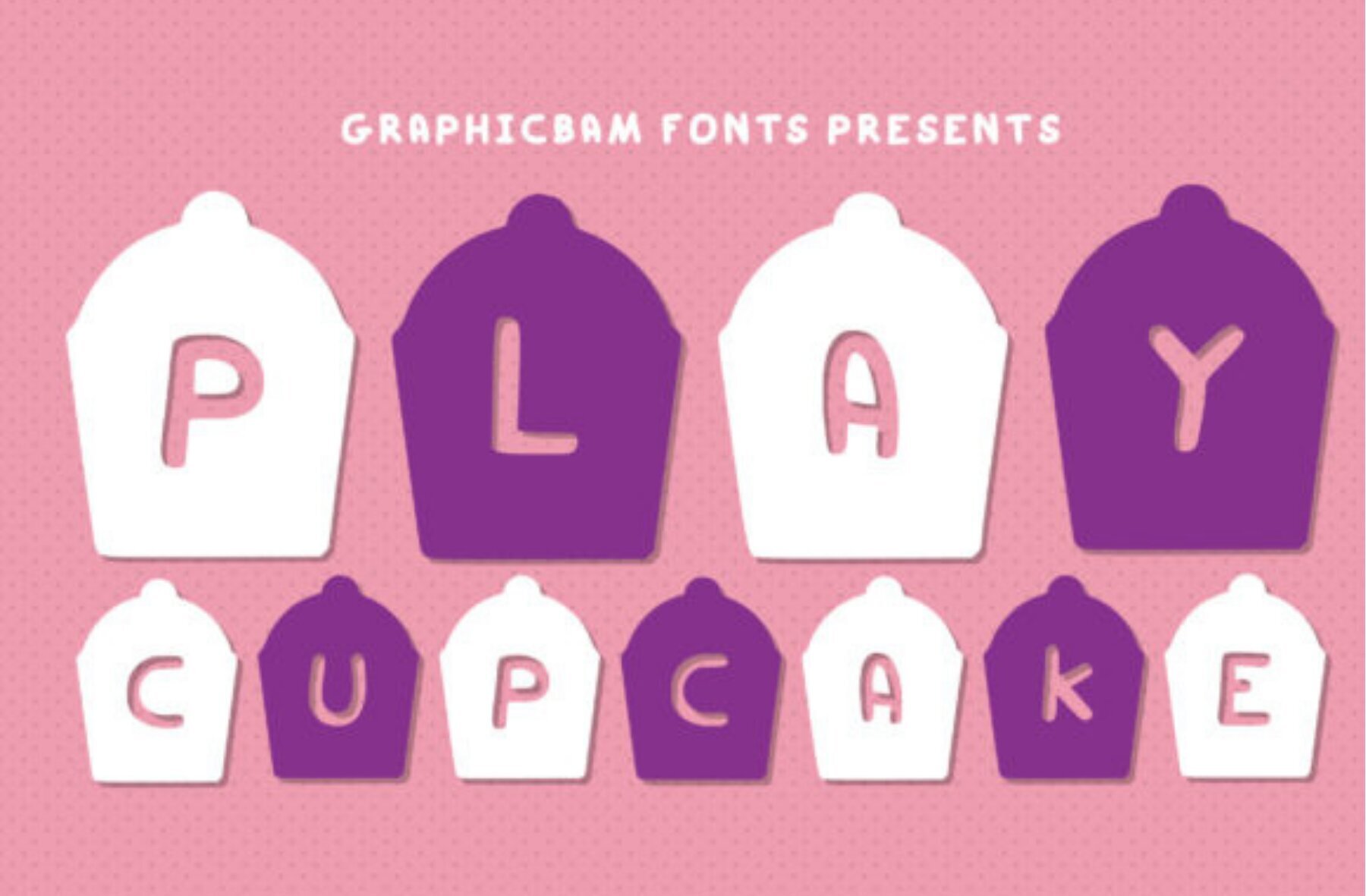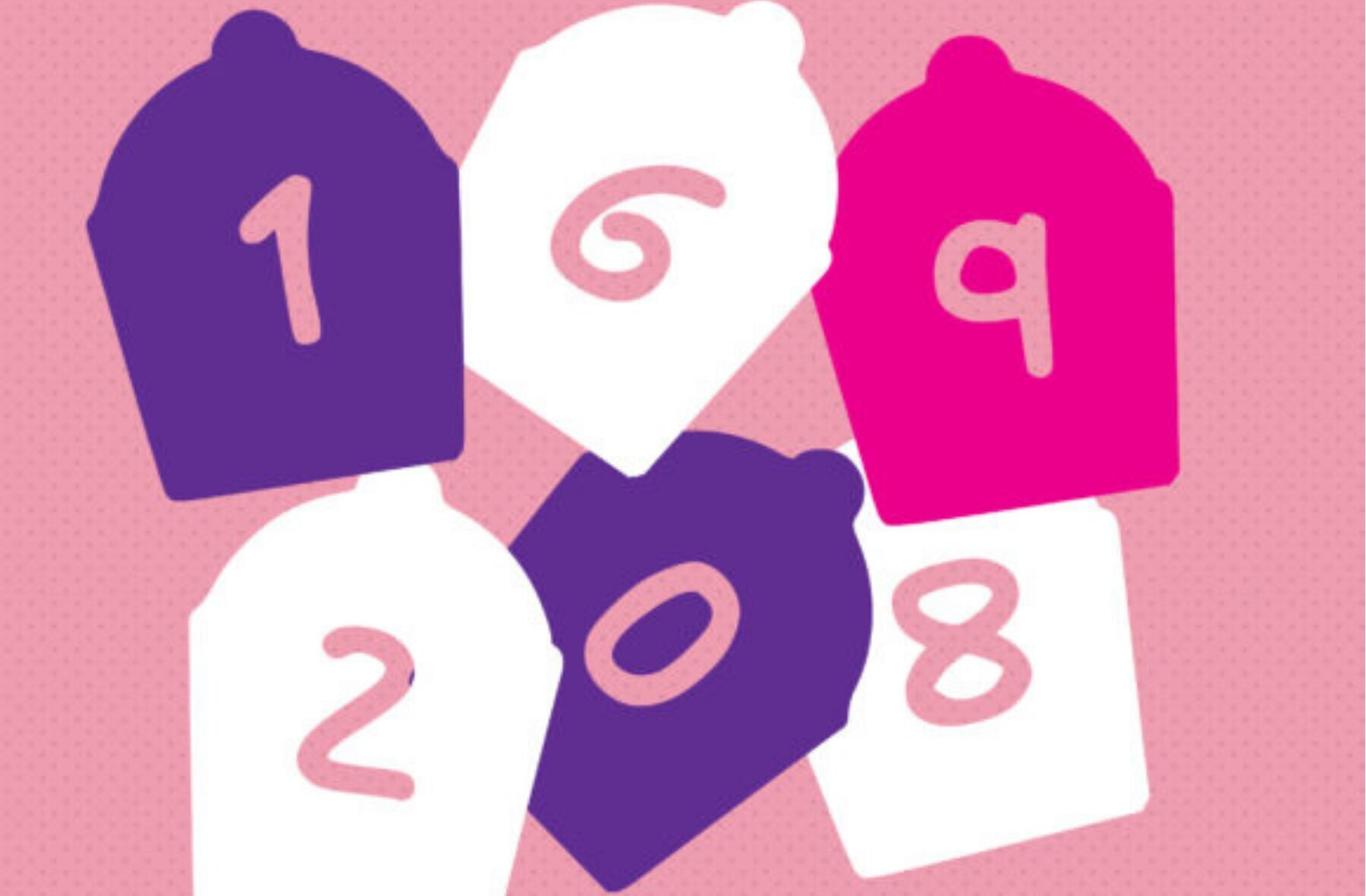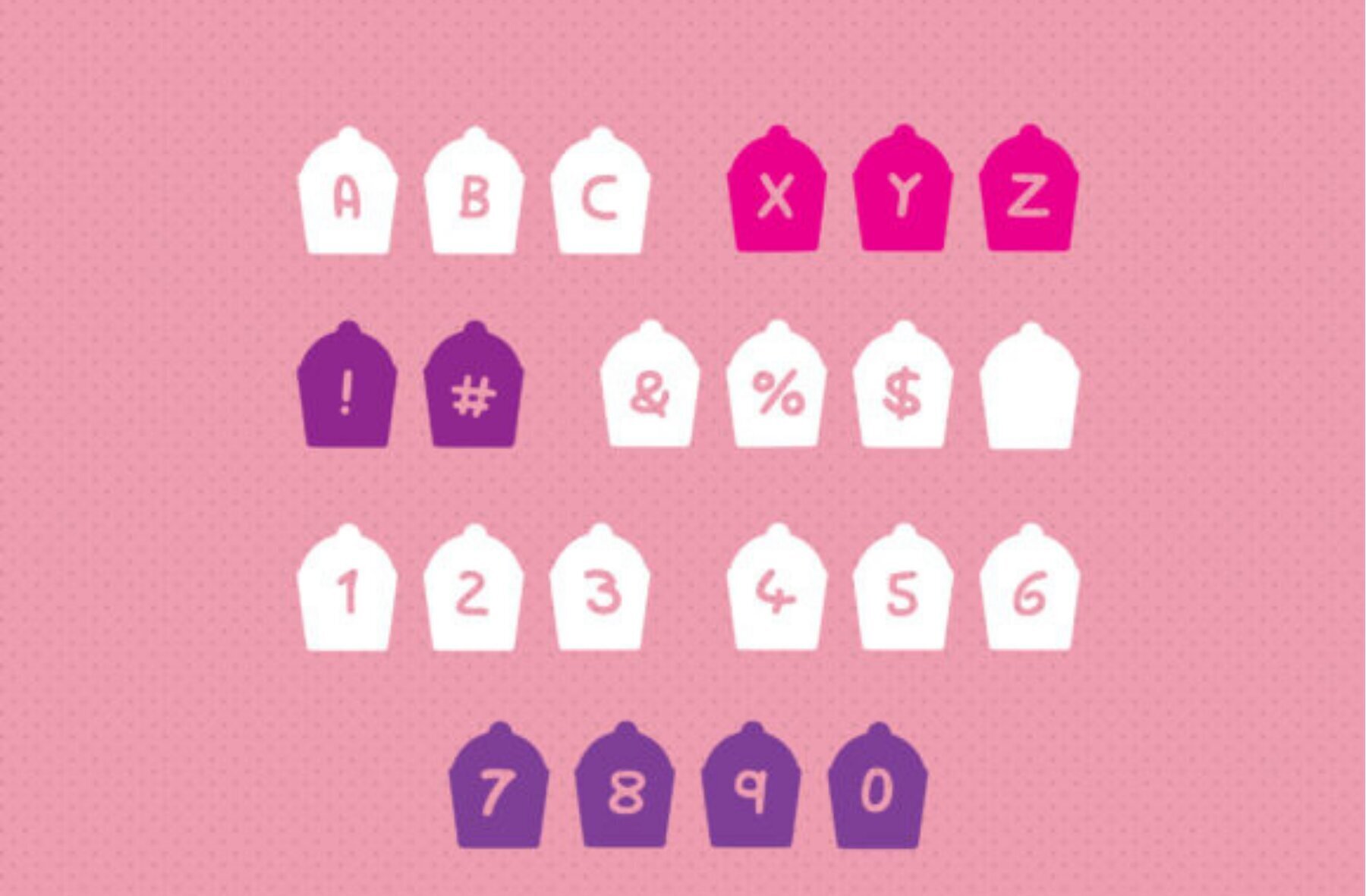
Play Cupcake Font
Play Cupcake
The Play Cupcake font is a delightful addition to any creative project, offering a playful and charming aesthetic. Designed with a fun, child-like quality, this decorative typeface captures the essence of sweet baked treats, making it the perfect choice for any cupcake-themed designs. Its handwritten style, complete with rounded sides, exudes friendliness and joy, adding a whimsical touch to your typography needs.Play Cupcake Font